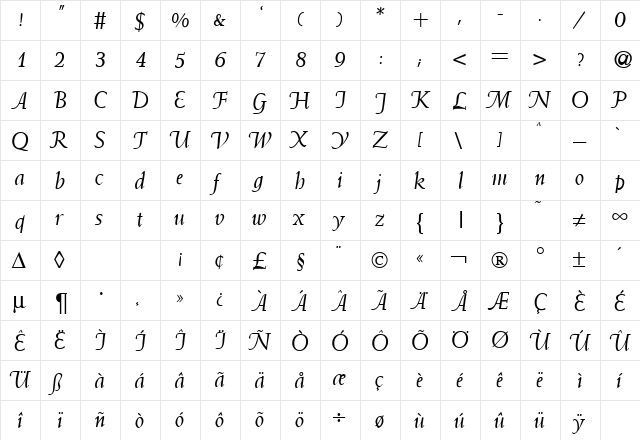
Waize RegularItalic
Design Context for Waize Typeface
Waize takes a measured approach to typography — its balanced proportions and neutral character make it a reliable workhorse for both digital and print work. The dynamic lean of this cut emphasises speed and emphasis in any layout.
Pro Tip: Use Waize for emphasis, pull quotes, and subheadings where its slanted energy can add rhythm to the layout.